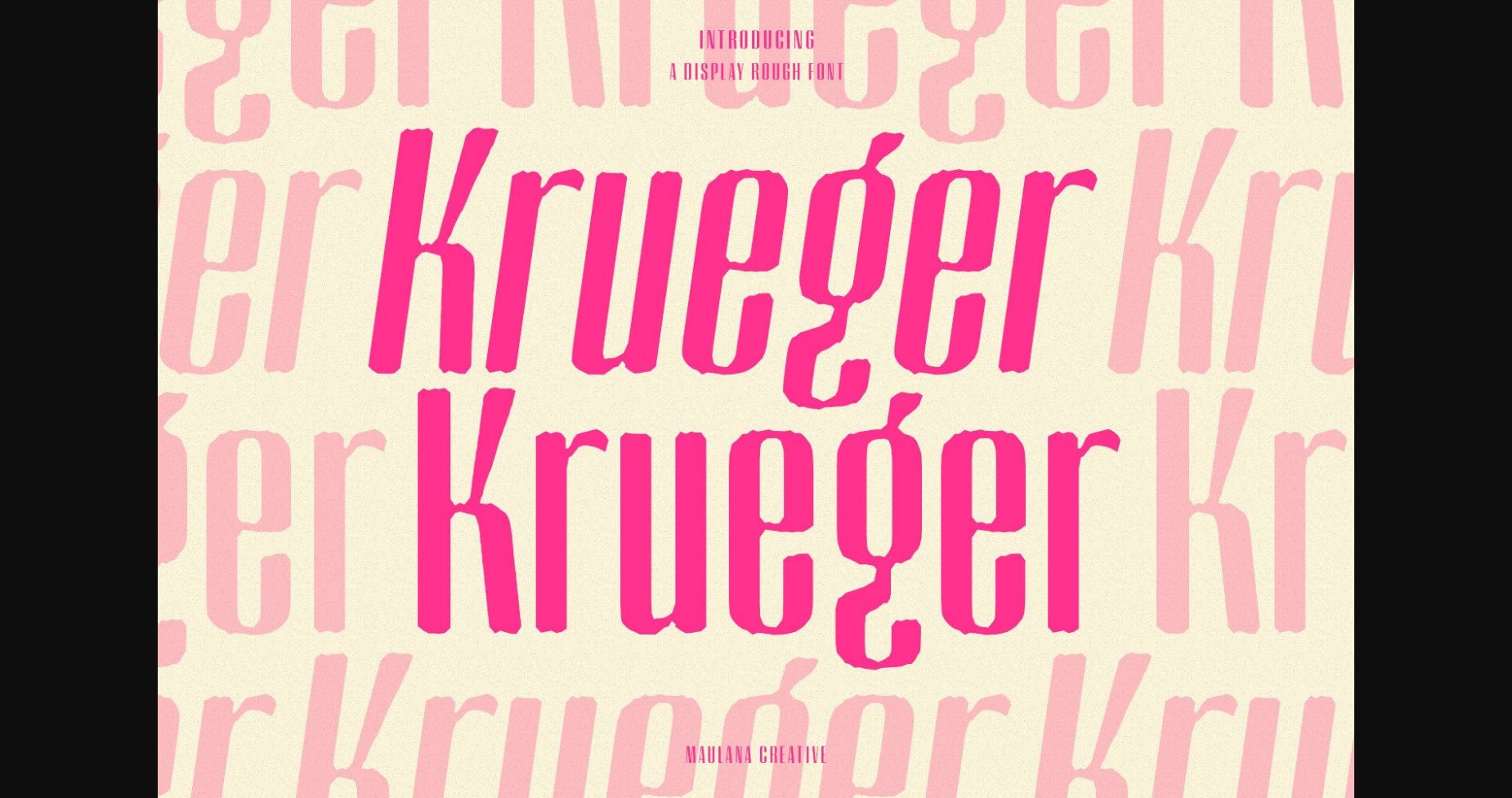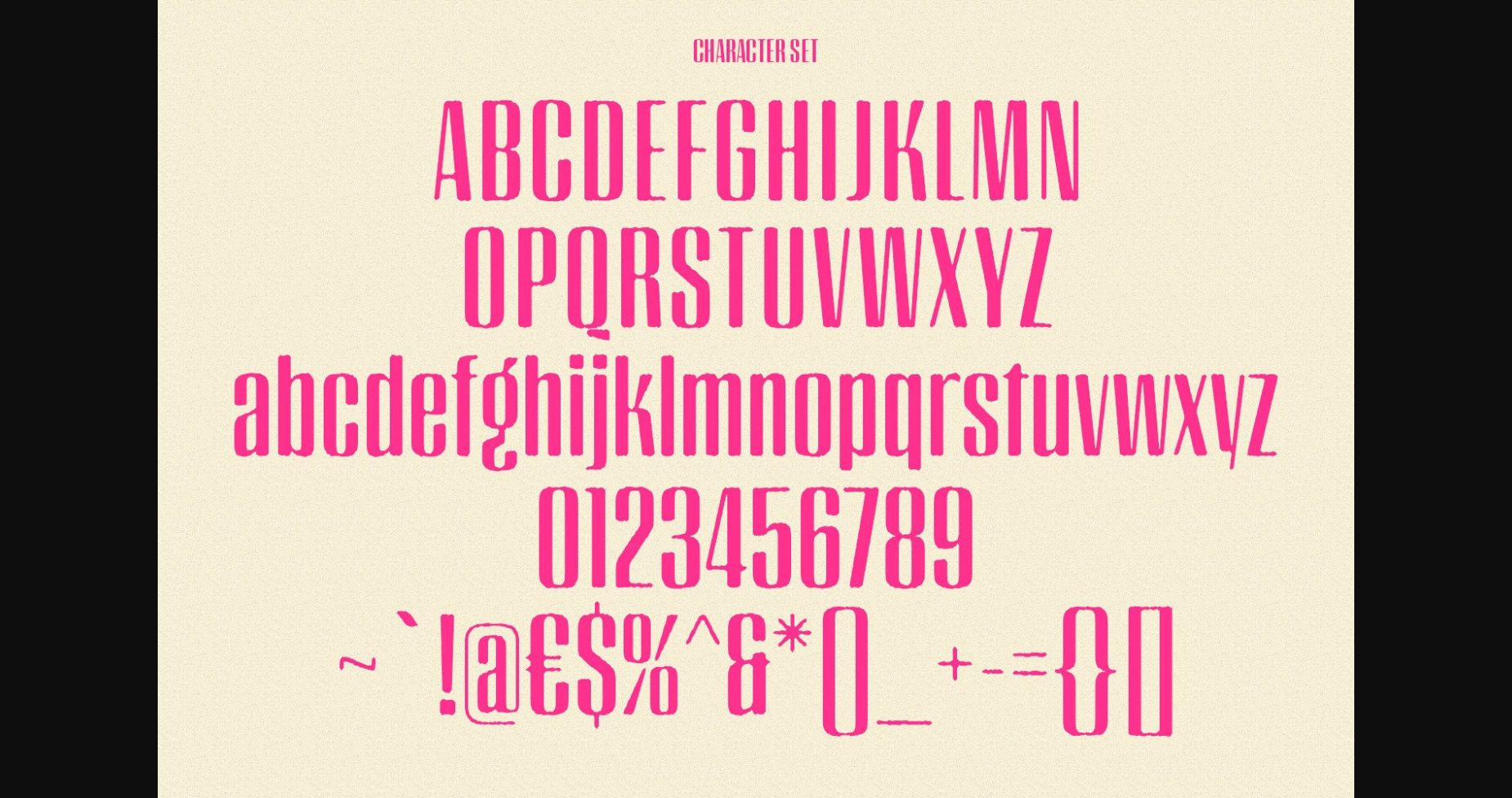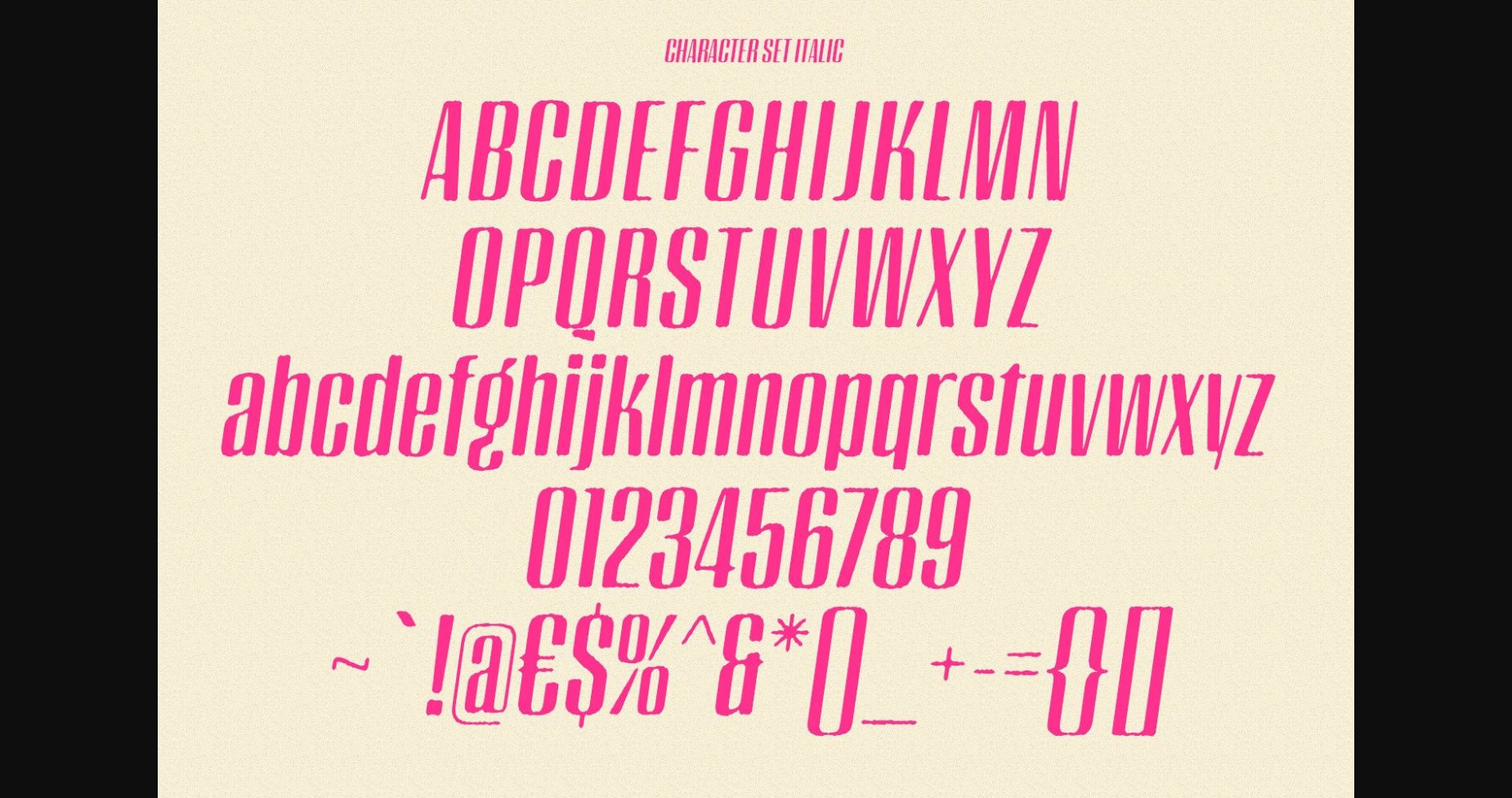
About Krueger Font
Krueger is a modern and stylish sans serif font. It has a classy, elegant, and modern look that can be used for logos, branding, invitations, stationery, wedding designs, social media posts, and much more!